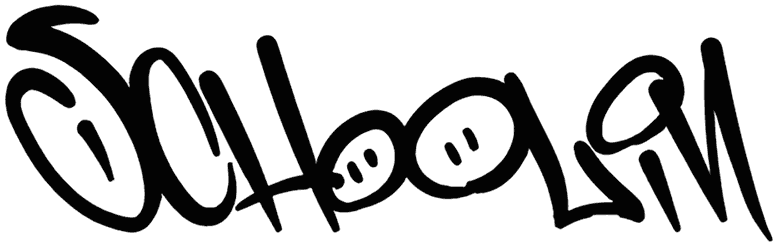
Schoolin Font
Schoolin is a delicate and elegant hip-hop font that is designed in graffiti style. If your priority is impressing the audience by sharing a sense of modernity, dynamic, grunge, and disorder, including it in street posters, digital banners, and movie brochures would be rational. Due to its sophisticated flow, reading its characters might be a little bit tricky, also, it doesn’t support lowercase letters.